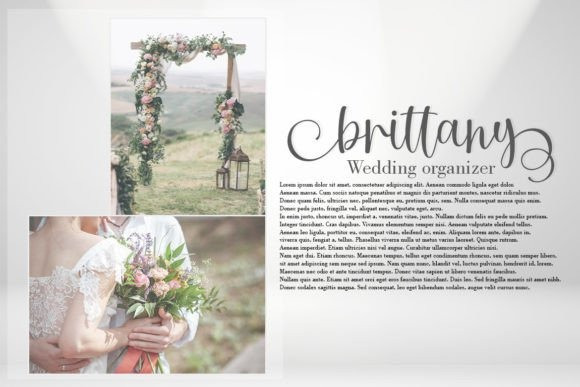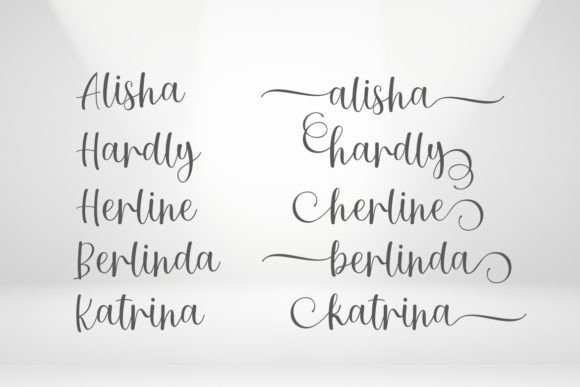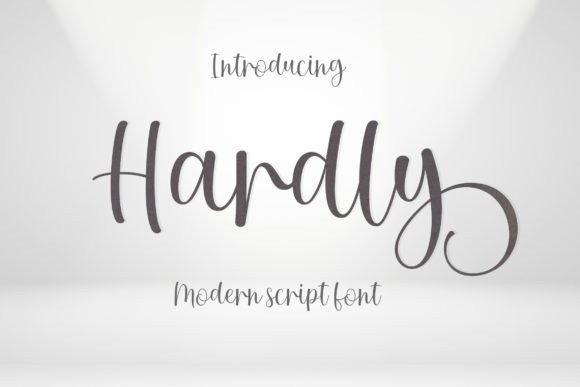
Hardly Script Font
Hardly Script Font is a delicate and elegant script font with a modern and sophisticated appearance. Its thin letterforms feature fluid strokes and subtle curves, creating a graceful and refined feel. The font is perfect for designs that require a sense of elegance and sophistication, such as wedding invitations, branding, or editorial design. Hardly is a versatile script font that can be used for both body text and headlines, and its delicate yet readable style makes it perfect for a variety of design projects.